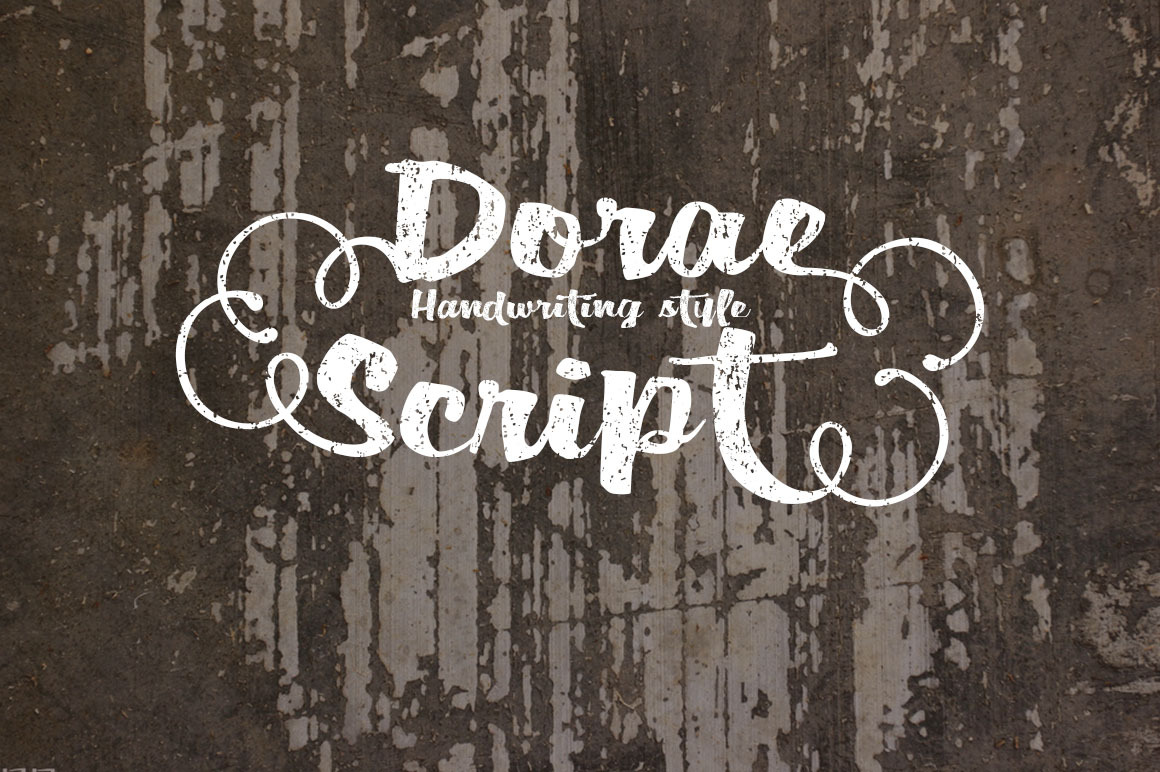
Dorae Script TureType Font
Dorae Script s a handwriting font, can be used for Logo, books, advertisements, etc. including initial and terminal letters, alternates, ligatures. More than 350+ glyphs. hope you like it, thank you.